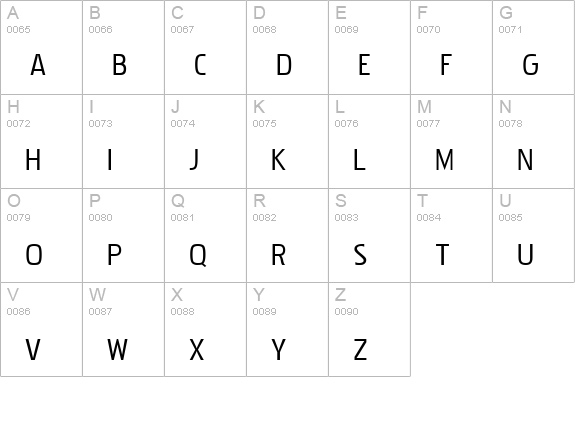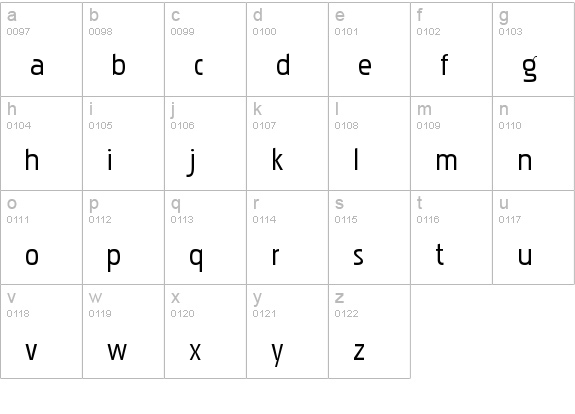
Pakenham Free Font Details
Pakenham Free font is a modern and stylish typeface that exudes elegance and sophistication. With its clean lines and sleek design, this font is perfect for adding a touch of class to any project. Whether you're designing a logo, creating a website, or working on a branding project, Pakenham Free font is sure to make a statement. The best part? Pakenham Free font is completely free to download! You can get your hands on this exquisite font at FontsMarket.com without spending a dime. Don't miss out on the opportunity to elevate your designs with this stunning typeface. Download Pakenham Free font today and take your projects to the next level.